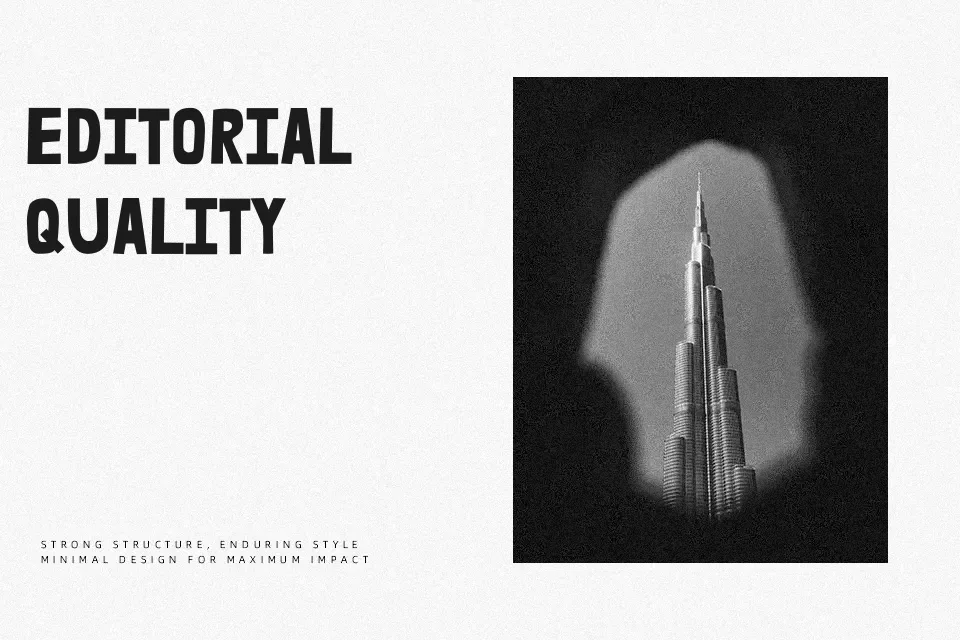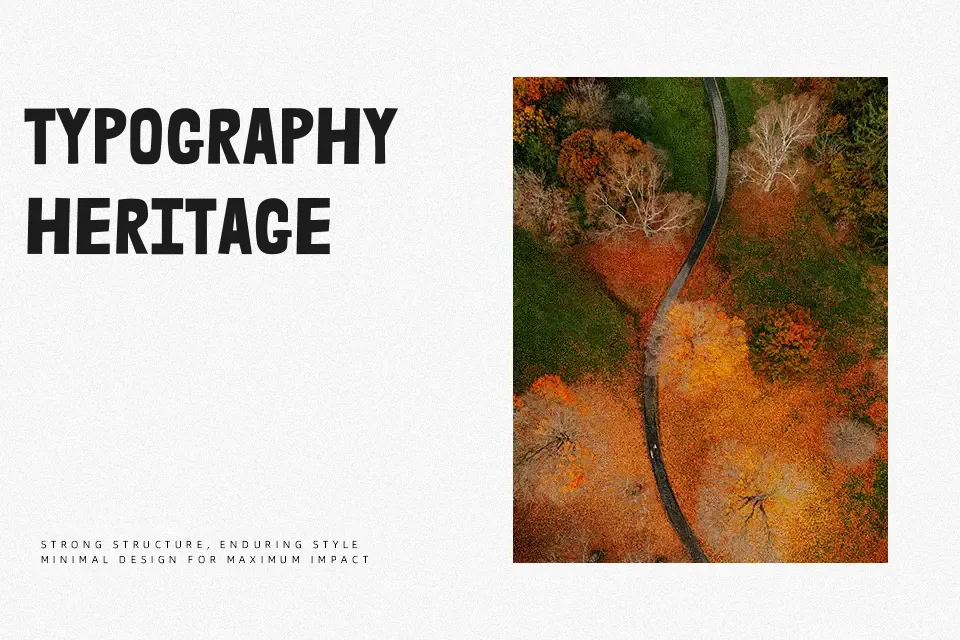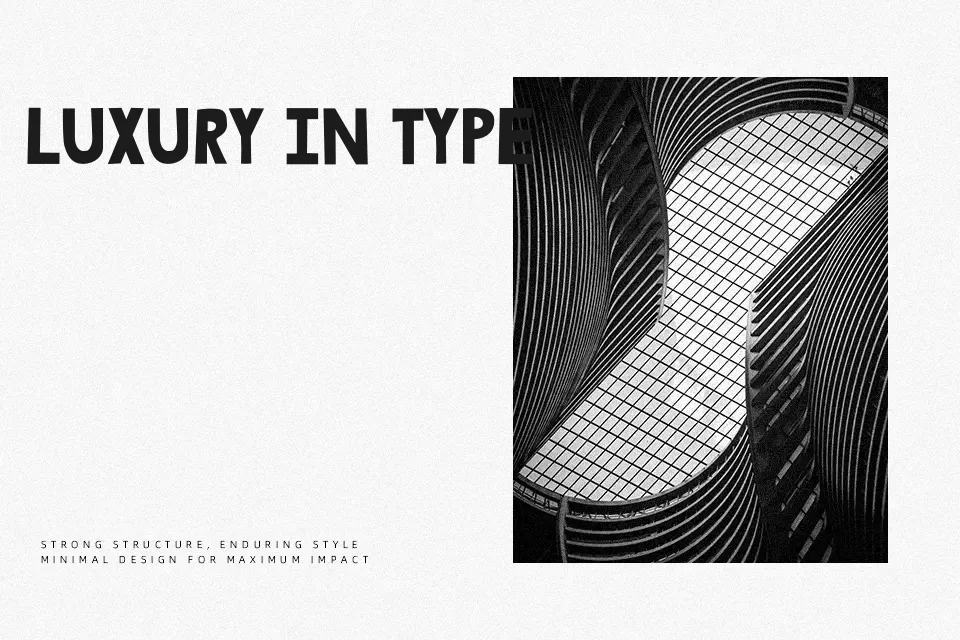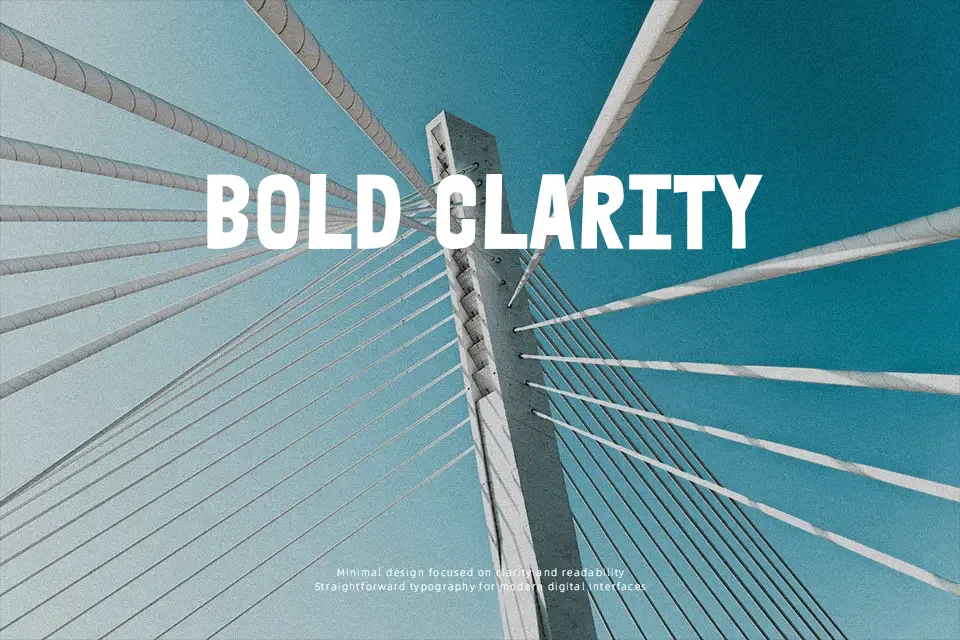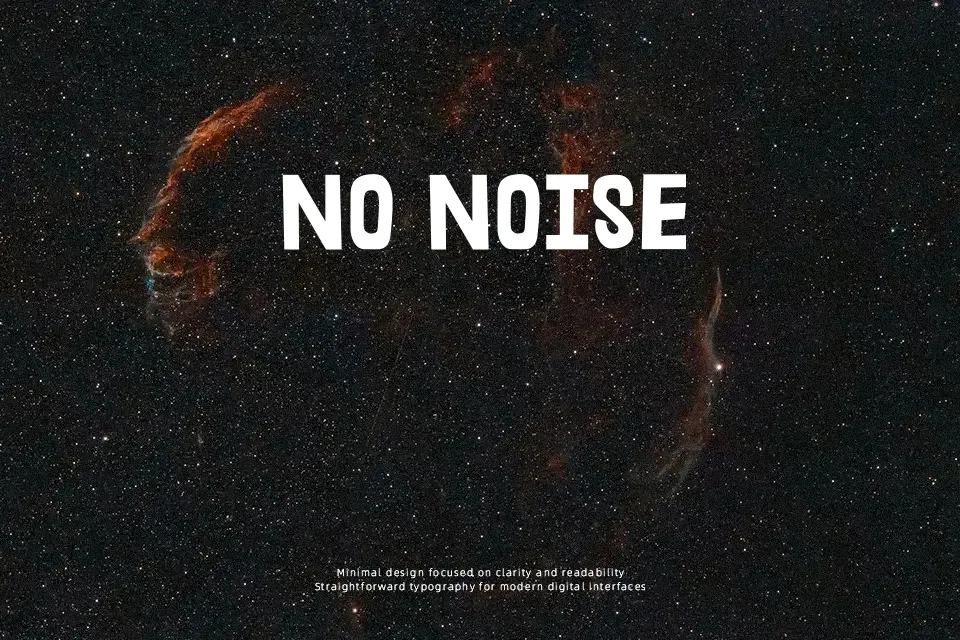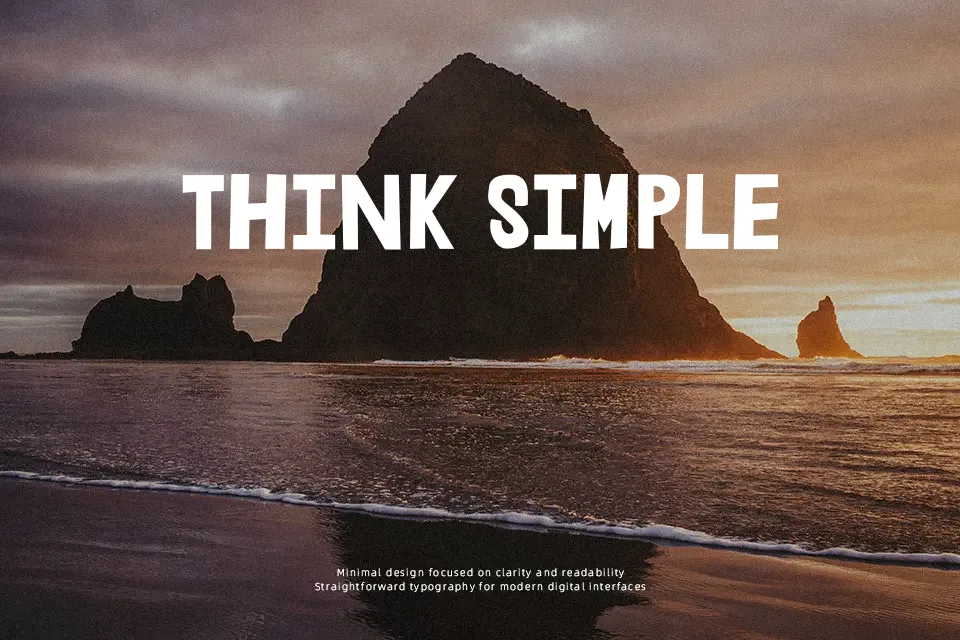
Black Lives Matter Font
Designed by Don Lee
The Black Lives Matter Font captures the raw energy of street activism. It functions as a heavy sans-serif featuring thick strokes, condensed letterforms, and tight spacing. Its textured edges mimic murals painted directly on asphalt, giving the typeface an unapologetically loud, gritty impression.
This bold display font excels in high-visibility applications like protest banners, grassroots campaign graphics, and striking editorial headlines aimed at driving social awareness. Because of its distressed detailing, the lettering requires ample space to breathe. It struggles significantly in smaller formats, making it unsuitable for body paragraphs, dense corporate documents, or UI design where legibility drops. Compared to standard block sans-serifs, it delivers a much more visceral, human-made aesthetic.
– Large-scale protest banners
– Grassroots campaign graphics
– Activism-focused editorial headlines
– Lengthy body paragraphs
– Formal corporate branding
– Small-scale mobile UI elements
Perfect for editorial, headline, and poster, with a bold and condensed style.